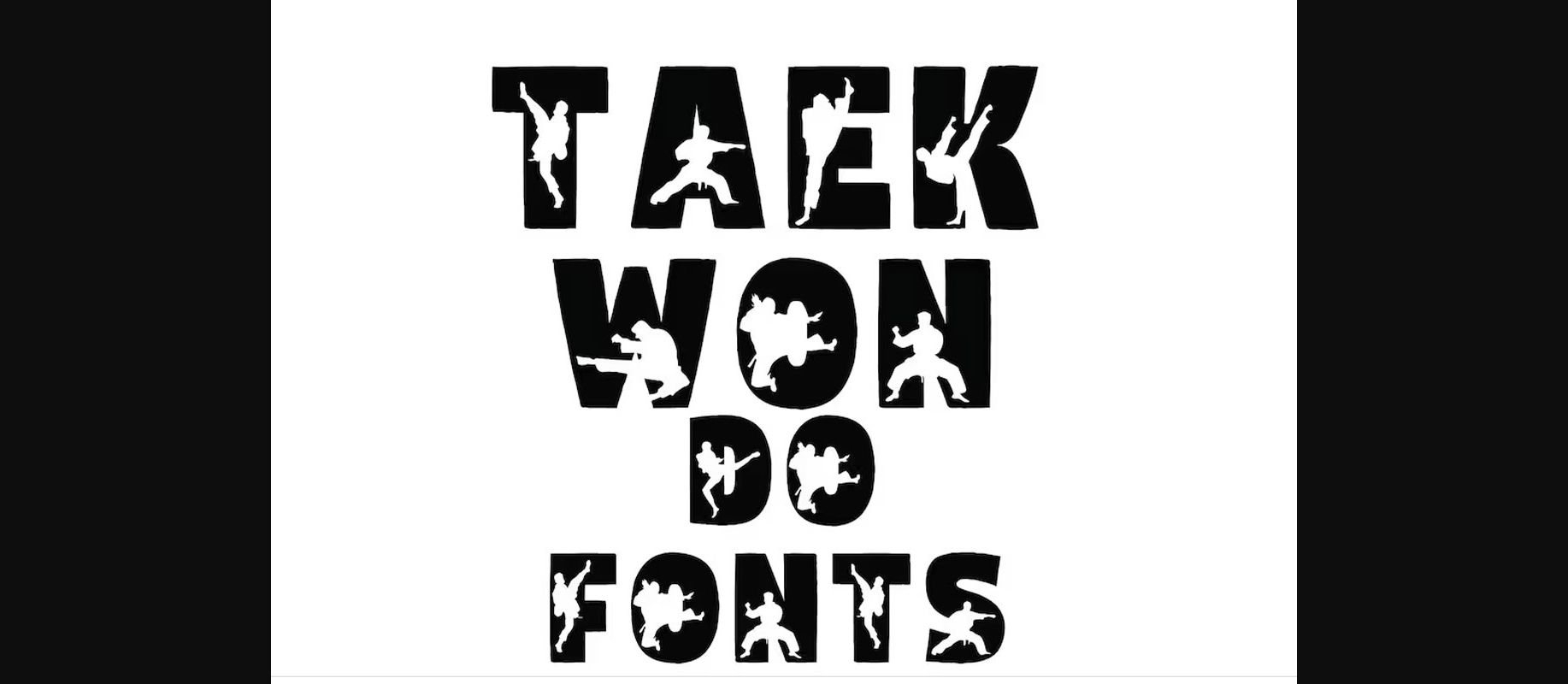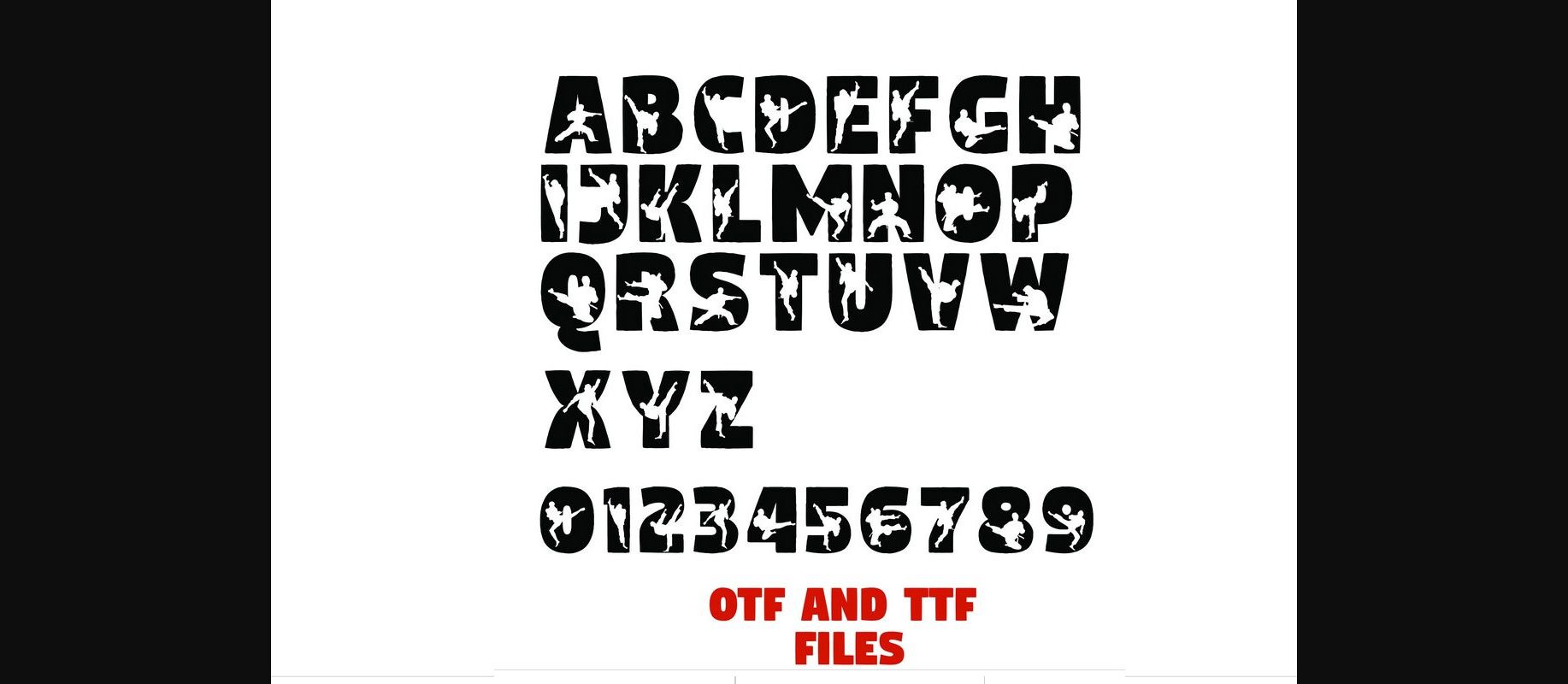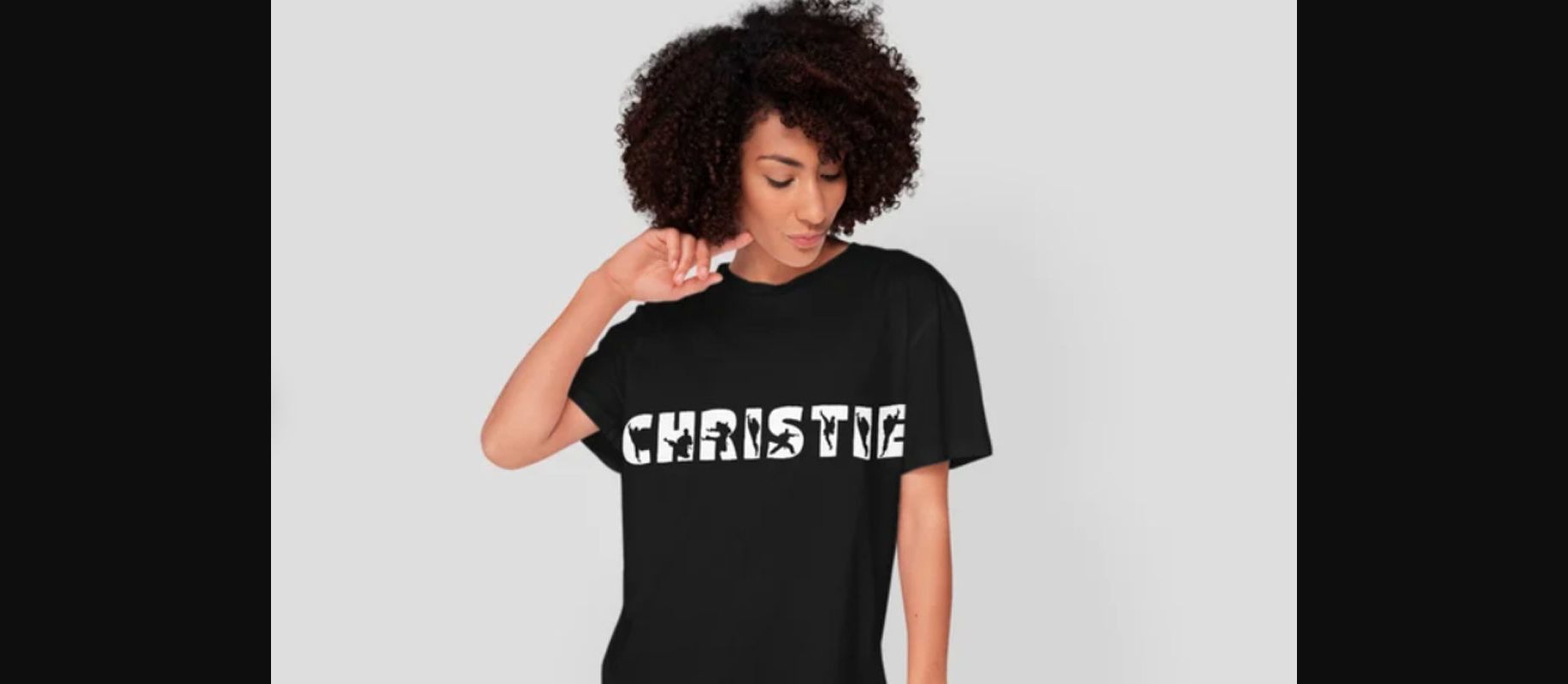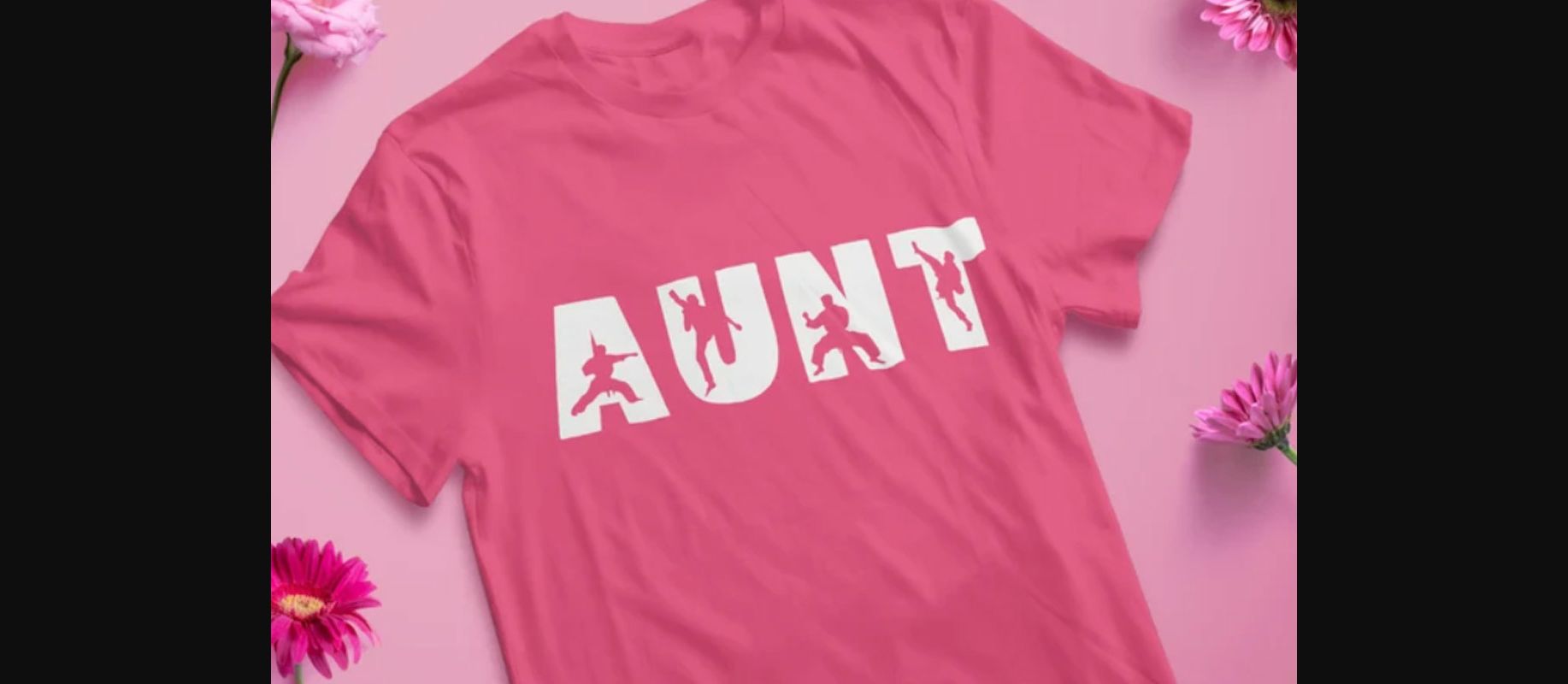
About Taekwondo Font
Unleash the power of Taekwondo in your designs with this martial arts font, an impactful alphabet and numbers font inspired by the art of martial arts. Designed specifically for Taekwondo enthusiasts, this font is perfect for creating martial arts studio logos, tournament posters, training materials, and more. It captures the spirit of Taekwondo with its bold and dynamic characters, allowing you to infuse your designs with the discipline and strength of this martial art. The font is available in both OTF (OpenType) and TTF (TrueType) formats, ensuring compatibility across various design software.